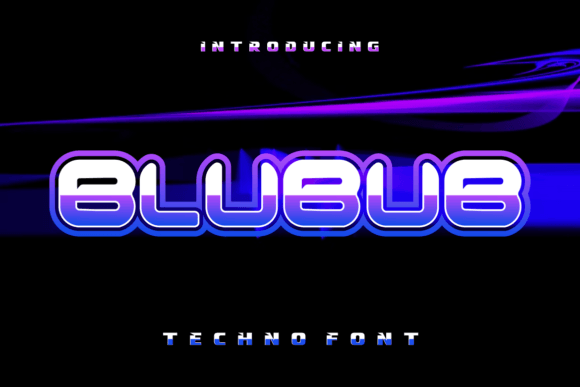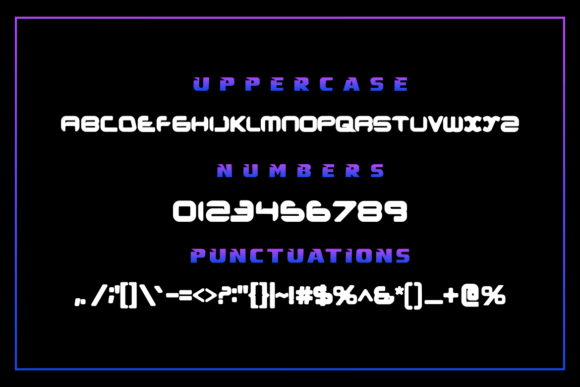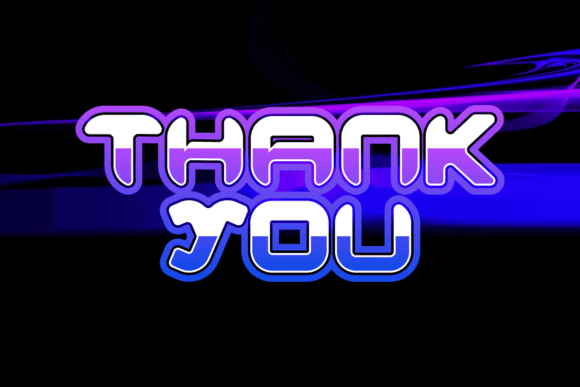
Introducing Blubub Font: Elevate Your Designs with Elegance and Modernity
In the realm of typography, a font can make or break the visual appeal of a design project. For designers and crafters seeking a modern, yet classy and elegant look, Blubub Font emerges as a stellar choice. This modern display font is not just a typeface; it’s a statement piece that can elevate a wide array of projects, from signatures and stationery to logos, wedding designs, typography quotes, magazine or book covers, website headers, clothing, branding, packaging designs, and more.
The Essence of Blubub Font
Blubub Font is crafted with the contemporary designer in mind. Its design elements strike a perfect balance between modernity and elegance, making it an ideal selection for projects that demand a touch of sophistication. Whether you’re working on a luxury brand’s logo, a wedding invitation, or a magazine cover, Blubub Font brings a level of refinement that is hard to achieve with standard typefaces.
One of the standout features of Blubub Font is its versatility. It’s not limited to a specific genre of design but can be seamlessly integrated into various projects. Here are a few ways you can utilize Blubub Font:
• Signature and Stationery: Add a personal touch to letters, notes, and official documents with a stylish and modern typeface.
• Logo Design: Create memorable and impactful logos that stand out in the digital and print world.
• Wedding and Event Design: Elevate wedding invitations, programs, and event banners with a touch of elegance.
• Typography Quotes: Make quotes and sayings visually striking for social media posts, blogs, or print materials.
• Magazine or Book Cover: Capture the essence of your publication with a font that promises quality and sophistication.
• Website Header: Enhance the user experience with a stylish and readable font that sets the tone for your website.
• Clothing and Merchandise: Design t-shirts, hoodies, and other merchandise with a font that speaks modern style.
• Branding and Packaging: Use Blubub Font to create a cohesive brand image across all your packaging and marketing materials.
Why Choose Blubub Font?
Choosing Blubub Font for your design projects comes with several advantages:
• Elegance: It brings an unmatched level of elegance to your designs, making them stand out.
• Readability: Despite its decorative nature, Blubub Font maintains a high level of readability, even at smaller sizes.
• Uniqueness: Stand out from the crowd with a font that is distinctive and modern.
• Flexibility: It can be used across various platforms and design applications.
Tips for Using Blubub Font Effectively
To maximize the impact of Blubub Font in your designs, consider the following tips:
• Pair it with Simplicity: Balance the elegance of Blubub Font with simpler design elements to avoid overwhelming the viewer.
• Experiment with Sizes: Play with different font sizes to create visual hierarchy and emphasize key messages.
• Use it Sparingly: While Blubub Font is beautiful, using it sparingly can make it more impactful. Consider using it for headings or key phrases.
• Customize: Don’t be afraid to experiment with font colors, gradients, and effects to match your brand’s aesthetic.
Blubub Font is more than just a typeface; it’s a design statement that can elevate your projects to new heights of elegance and modernity. Its versatility, combined with its stylish and classy appeal, makes it an indispensable tool in the arsenal of designers and crafters. Whether you’re working on a personal project or a client’s, Blubub Font is sure to leave a lasting impression. So, dive into the world of Blubub Font and discover how it can transform your designs into stunning visual experiences.